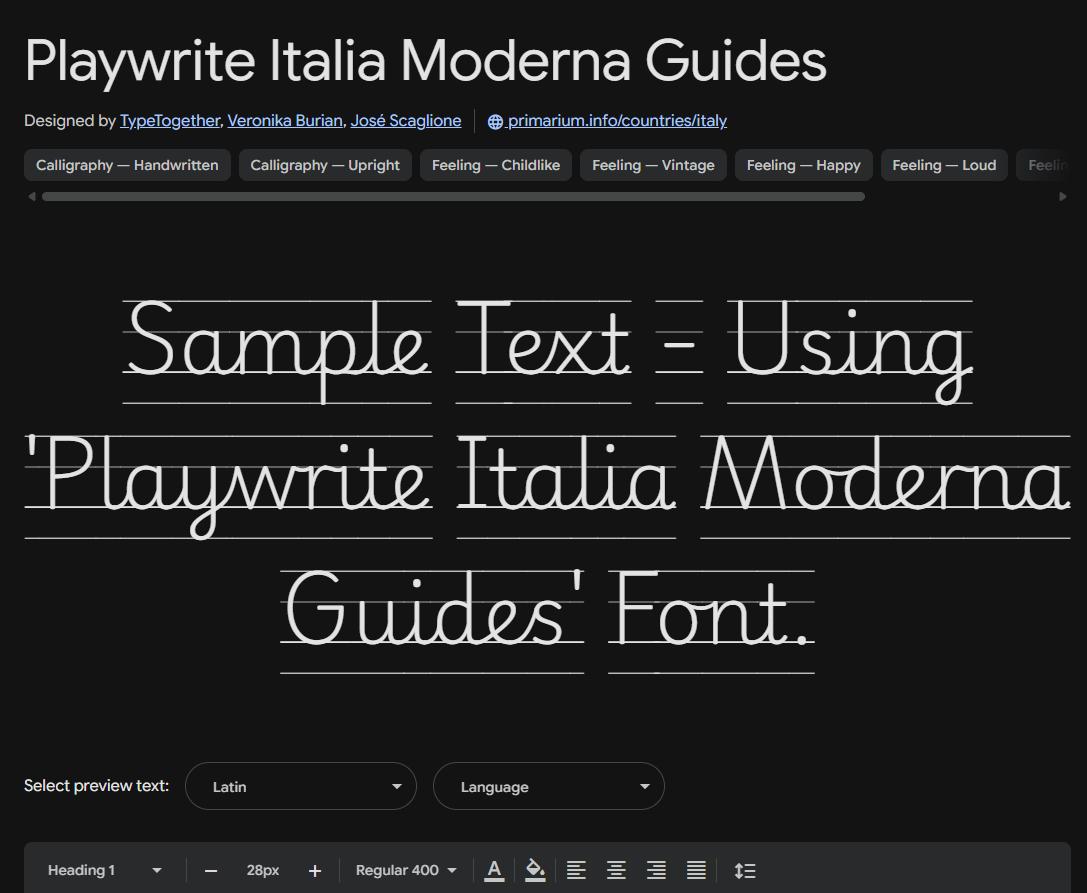
Engineered by Veronika Burian and José Scaglione of TypeTogether, Playwrite Italia Moderna Guides is a specialized single-style typeface that bridges the gap between traditional Italian pedagogical models and modern digital accessibility. By integrating precise horizontal metrics directly into the glyph architecture, this font utilizes a structured grid of mean lines and baselines to provide a didactic framework for letter formation, optimizing the x-height and ascender ratios for emergent literacy. This technical execution transforms a modular skeleton into a sophisticated educational tool, ensuring that the fluid stroke weights and cursive connections remain semantically clear and instructionally effective within contemporary digital learning environments.
The Playwrite Italia Moderna Guides font family functions as a sophisticated pedagogical script that bridges the gap between digital typography and organic human motion, utilizing an upright calligraphic ductus to replicate the nascent, handwritten strokes of a child. By integrating structural horizontal rules directly into the typeface's skeletal architecture, the family achieves a vintage schoolhouse aesthetic that is simultaneously playful and rugged, characterized by a deliberate lack of slant and a happy, high-visibility weight. This typeface leverages precise stroke modulation and generous x-heights to translate complex motor skills into legible digital glyphs, creating a loud, expressive visual language that honors traditional Italian penmanship while maintaining a tactile, childlike authenticity ideal for instructional design and nostalgic, semantic-heavy branding.
Playwrite Italia Moderna Guides, engineered by Veronika Burian and José Scaglione for pedagogical foundational literacy, is fundamentally unsuitable for high-density corporate communications, legal documentation, or medical labeling due to the significant visual noise generated by its integrated instructional rule lines. From a technical standpoint, the permanent horizontal guides disrupt the optical rhythm and baseline stability required for rapid information processing, creating a high cognitive load that compromises reading speed and legibility in small-scale applications. Because the typeface prioritizes the mechanics of letterform construction over a clean typographic texture, its use in professional branding or technical white papers would result in a fragmented hierarchy where the instructional scaffolds interfere with x-height perception and kerning precision, ultimately undermining the semantic authority and aesthetic minimalism required for sophisticated business environments.
This font is primarily utilized in educational contexts to provide a standardized template for Italian primary school handwriting instruction. By adhering to the Modello di Scrittura standards, the typeface optimizes letterform acquisition through a consistent baseline and x-height reference system.
The integrated horizontal lines provide a visual framework for students, but they significantly increase the total vertical footprint of each glyph. These guides necessitate a wider leading value in CSS to prevent vertical collisions, effectively doubling the standard line-height requirements compared to guide-free variants.
The font functions effectively as a nostalgic or instructional display face when rendered at larger sizes for print media. High-resolution output reveals the precision of the variable font axes, ensuring that the stroke weight remains optically balanced even at display scales exceeding 72pt.
The continuous cursive connections and integrated ruling lines can create significant visual noise on standard resolution digital displays. Rendering engines may struggle with the complex OpenType glyph alternates, often leading to sub-pixel blurring unless hardware-accelerated anti-aliasing is active.
Designers frequently leverage the structural guides to evoke a classroom aesthetic or a sense of developmental progress in brand storytelling. Utilizing specific stylistic sets allows for the isolation of the ruling lines, creating a geometric rhythm that reinforces the brand's association with structured educational frameworks.
Neutral, geometric sans-serifs provide a necessary visual anchor to balance the fluid and intricate nature of the Playwrite script. Pairings with fonts like Montserrat or Roboto are statistically favored because their high x-height and open counters complement the complex vertical metrics of the cursive forms.
The thin guide lines and delicate cursive strokes remain sharp and legible when presented in high-contrast environments, such as white text on dark backgrounds. The luminance contrast ratio must be strictly monitored, as the fine-line thickness of the guides can fall below the 4.5:1 WCAG accessibility threshold on low-density displays.
The typeface serves as a sophisticated focal point in minimalist layouts by introducing a tactile, manual texture without crowding the white space. The font's kerning tables are optimized for rhythmic flow, allowing it to function as a typographic ornament that anchors a grid-based composition.
Legibility decreases significantly at smaller point sizes because the horizontal guides begin to merge visually with the actual letter strokes. Below the 12px threshold, the hinting data is often insufficient to distinguish instructional lines from character paths, resulting in a breakdown of glyph recognition.
The Italian style emphasizes a specific slant and looping pattern that distinguishes it from Anglo-Saxon or French cursive traditions. The specific italic angle and ductus of the forms create a unique frequency in the vertical stems, producing a distinct typographic color and density in long-form text.